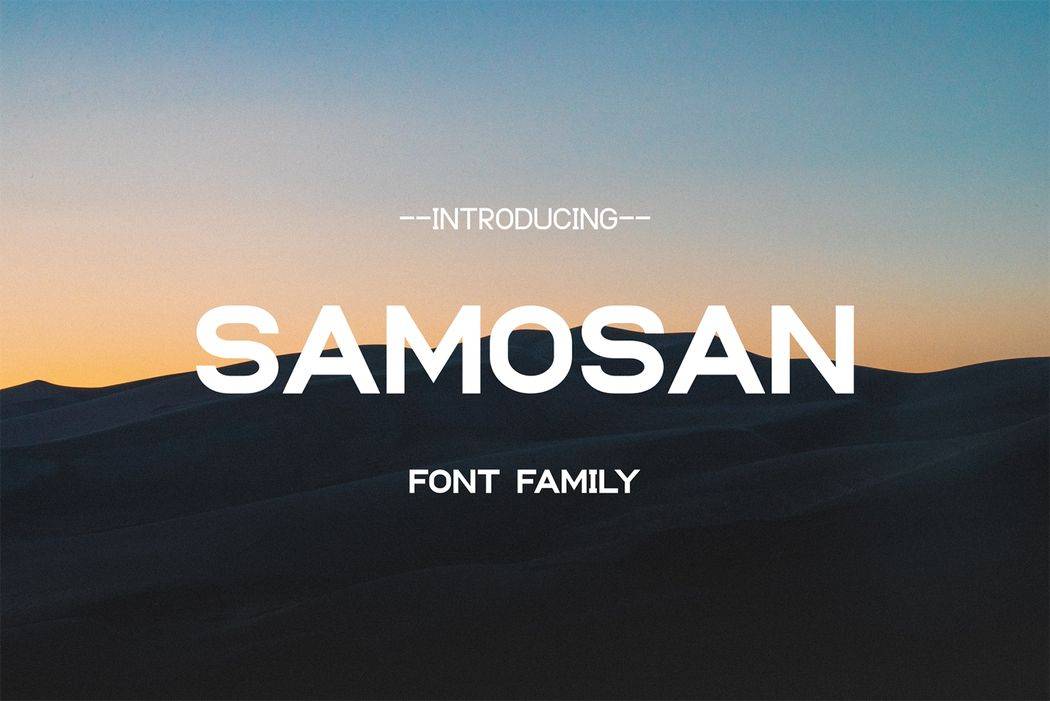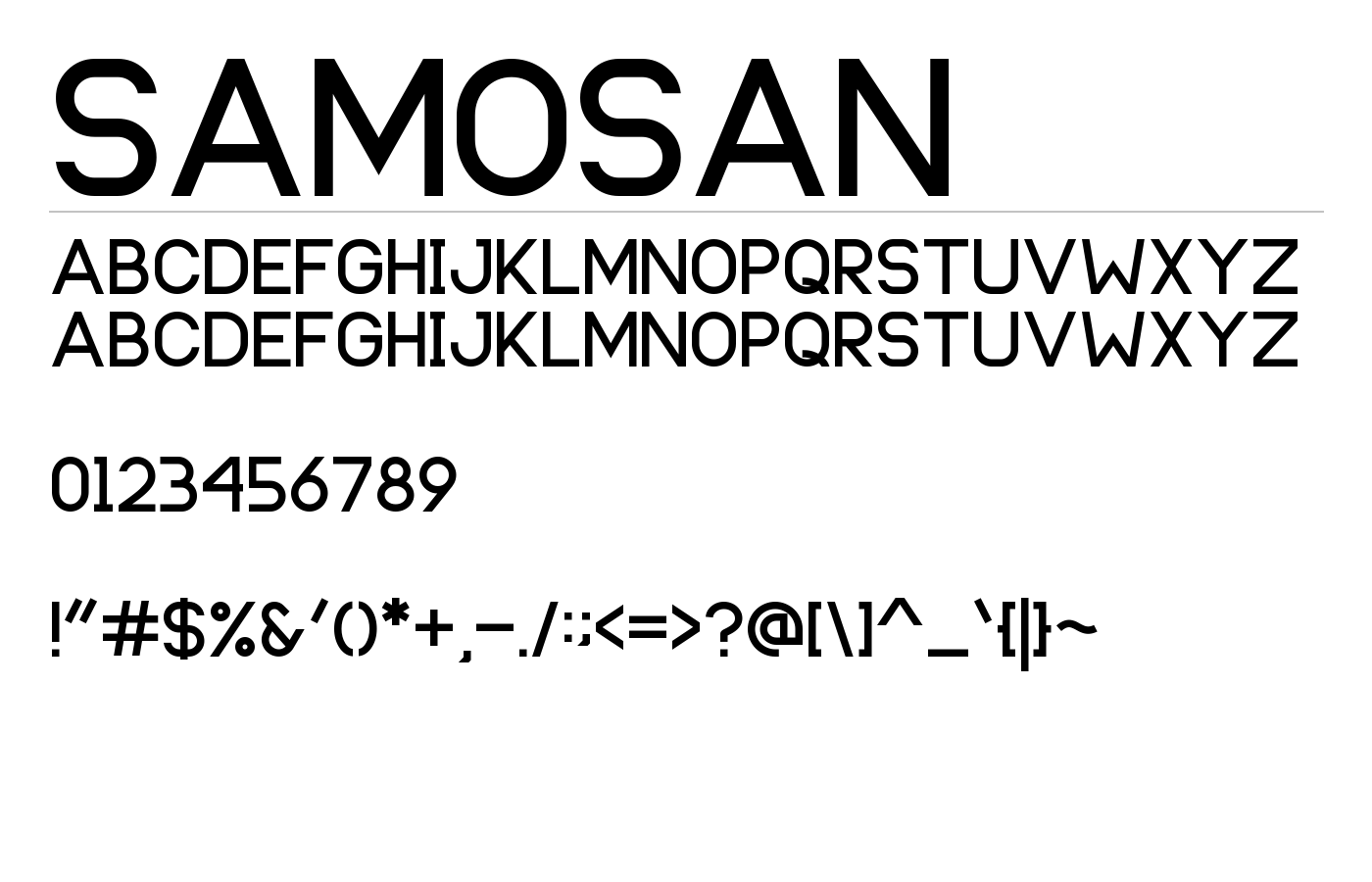
Samosan is a clean and modern sans serif font with a slightly condensed width and consistent medium weight, making it highly legible and versatile. Its geometric strokes and subtle quirks, like the distinctive tail on the Q and single-story a, give it a contemporary yet approachable character suitable for a wide range of uses, from branding to editorial design. This font works well in digital and print formats where clarity and a professional, sleek look are needed.
Samosan Font
About Samosan Font